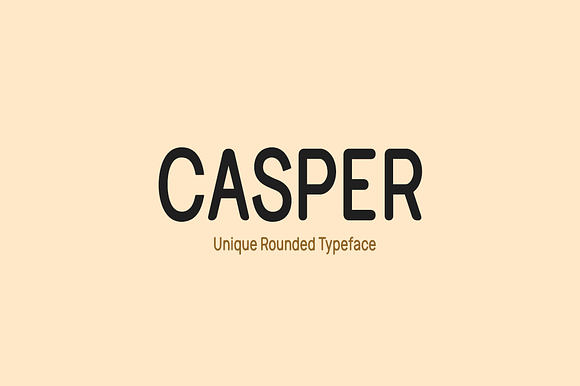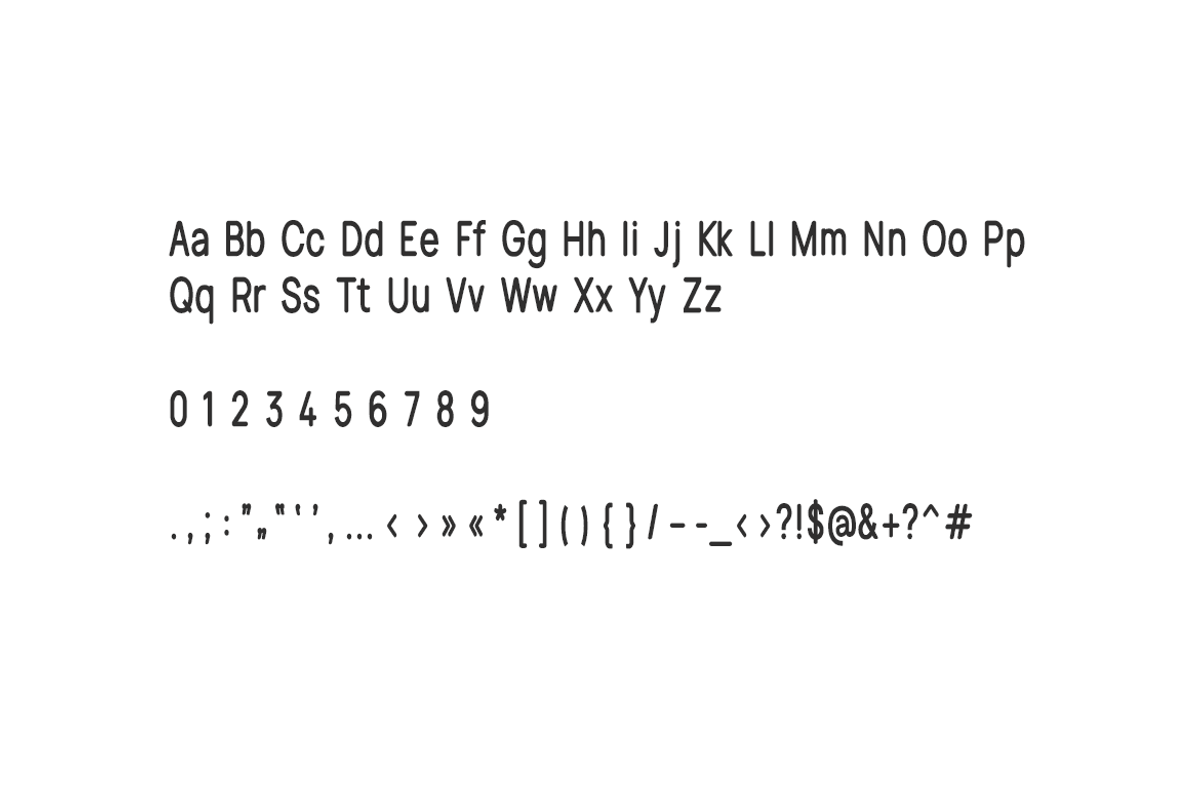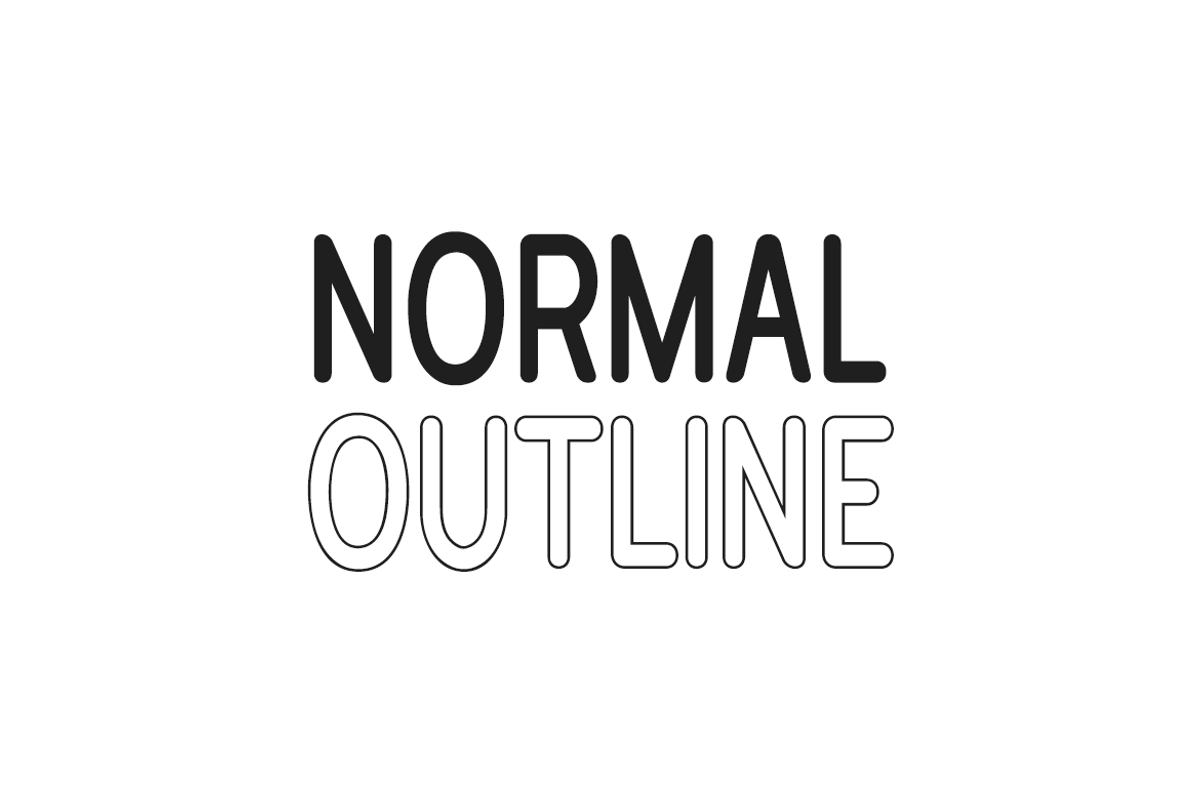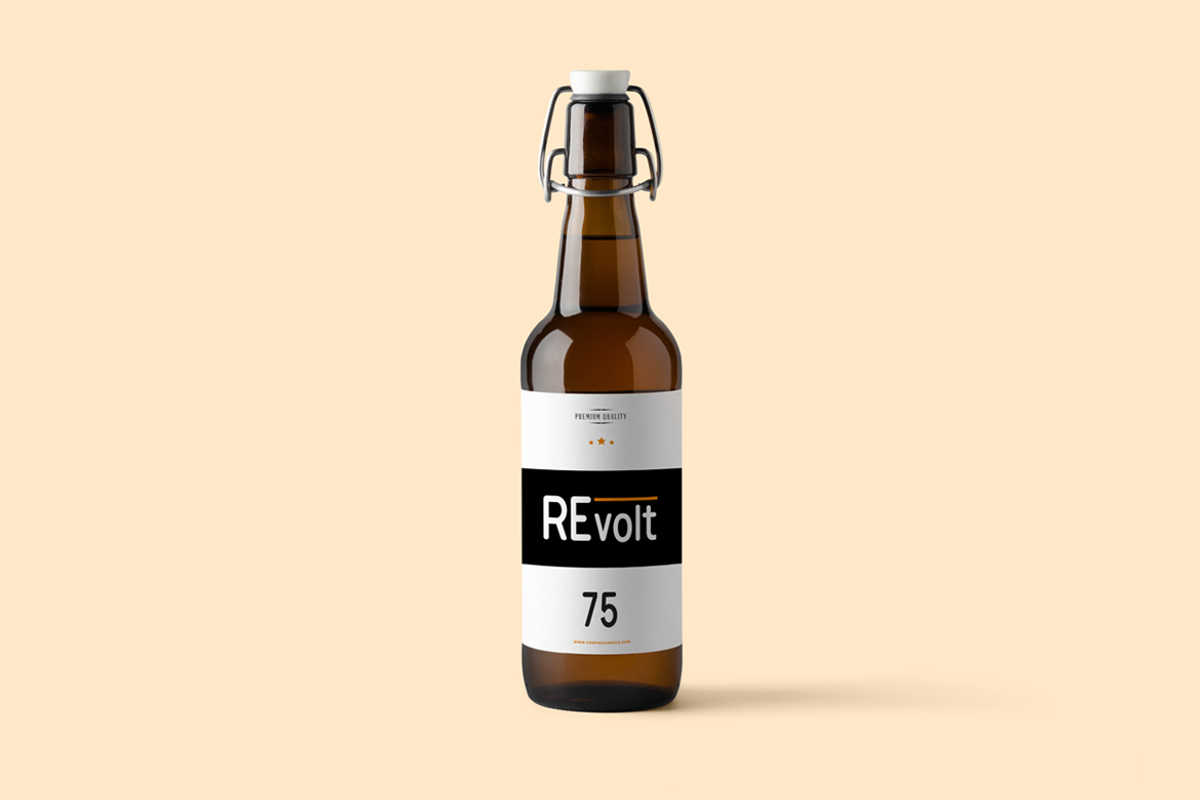
CASPER - Unique Rounded Typeface
Casper is a unique rounded typeface for logo, branding, headlines, big text & display usage. The typeface is best suited for creating professional logos, marketing graphics and promotional designs. Please see the examples shown above to get an idea about the capability of this typeface.
Casper comes as a single weight font with 2 styles (Regular & Outline) in this typeface. The pack contains OTF, TTF and Web Fonts (all EOT, SVG, TTF, WOFF, WOFF2 everything is included).
- Casper Regular
- Casper Outline